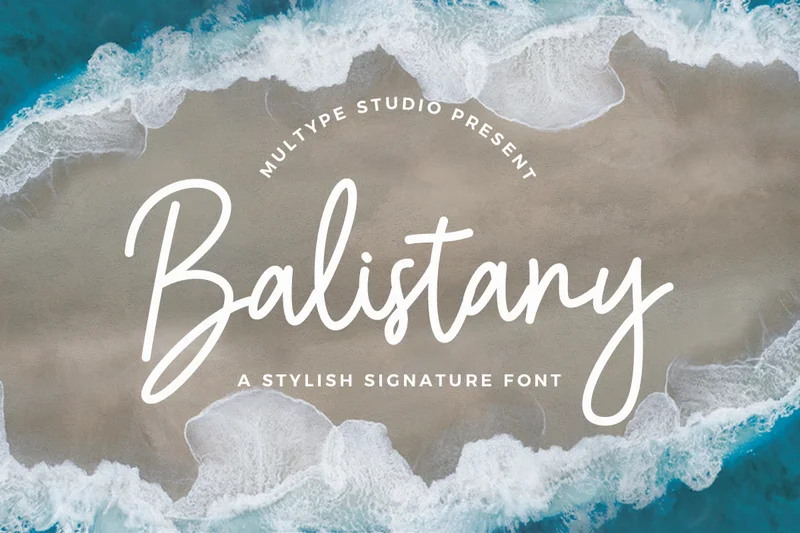
Balistany Signature Elegant Font
Balistany is a monoline stylish signature font perfect for any awesome projects that need handwriting taste. Balistany is perfect for photography, watermark, social media posts, advertisements, logos & branding, invitation, product designs, label, stationery, wedding designs, product packaging, special events or anything that need handwriting taste.